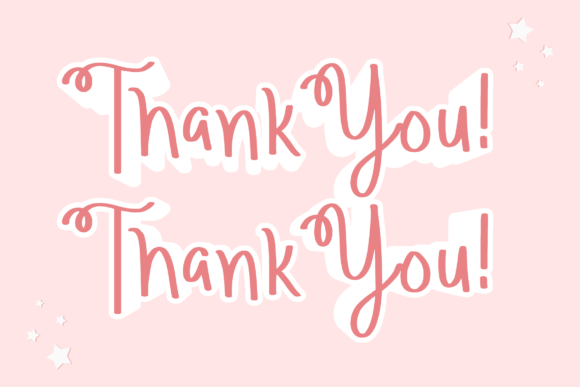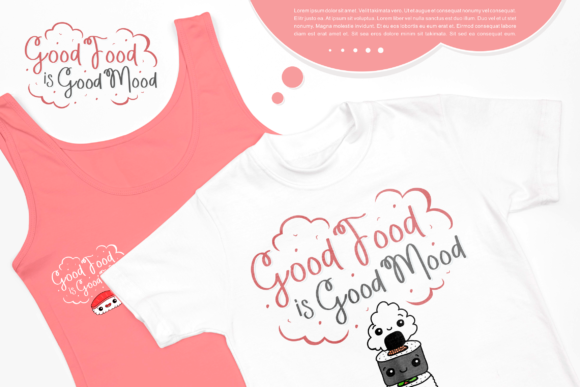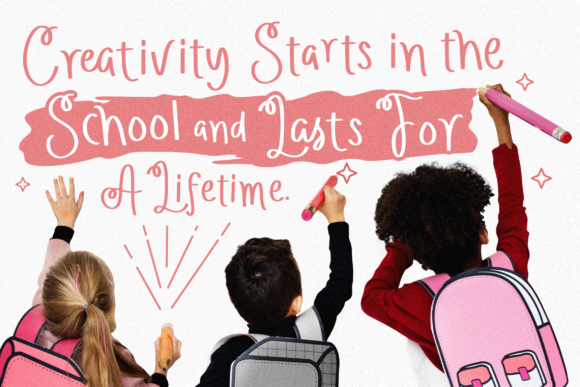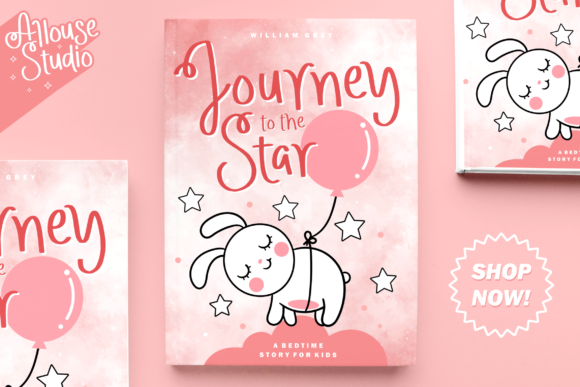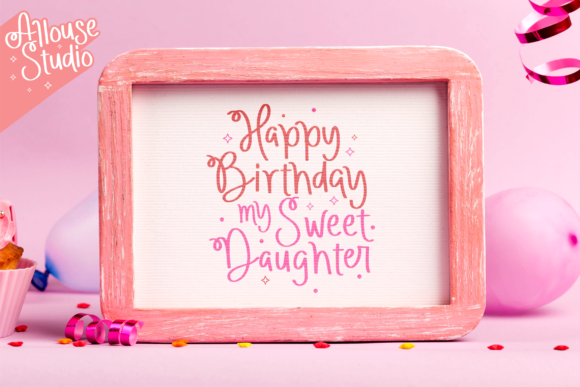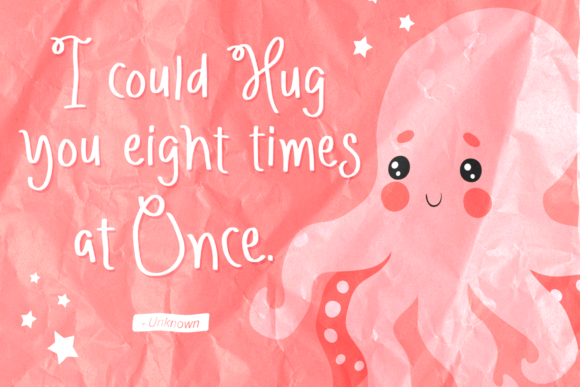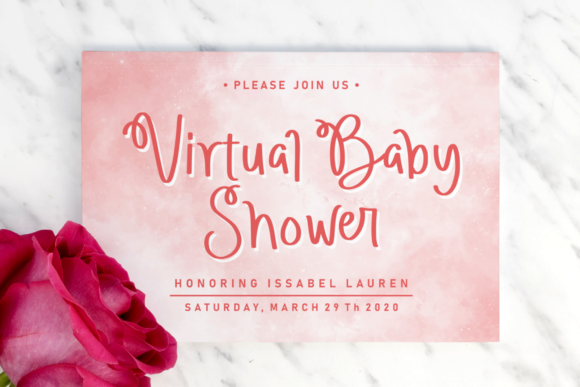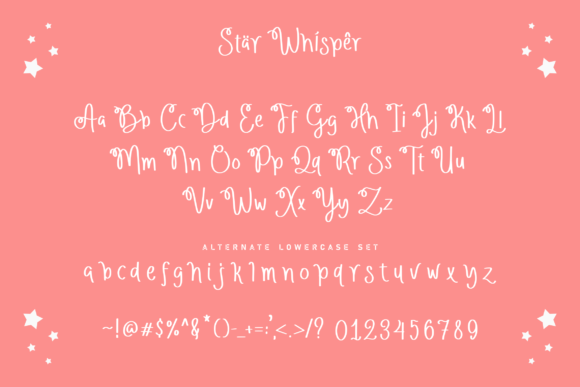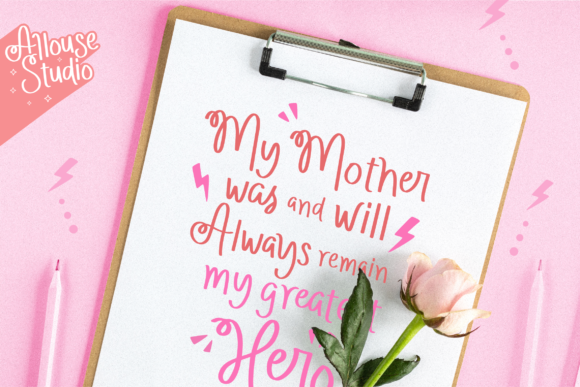
Star Whisper Font
About Star Whisper Font
Star Whisper is a cute script font. Get creative with its childlike playfulness, and use it to brighten up any kids and school project!